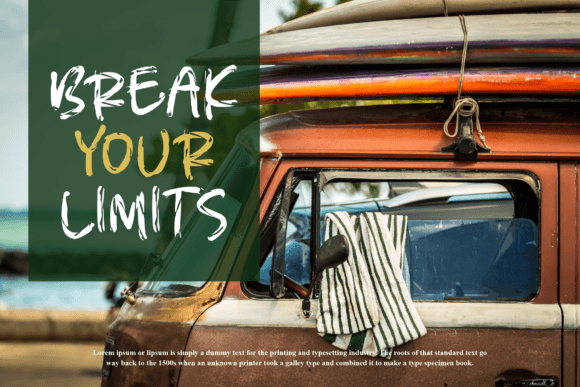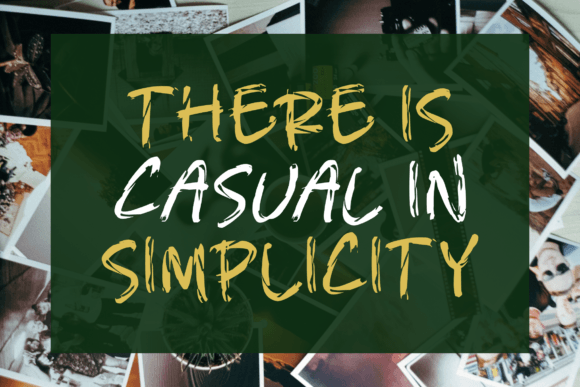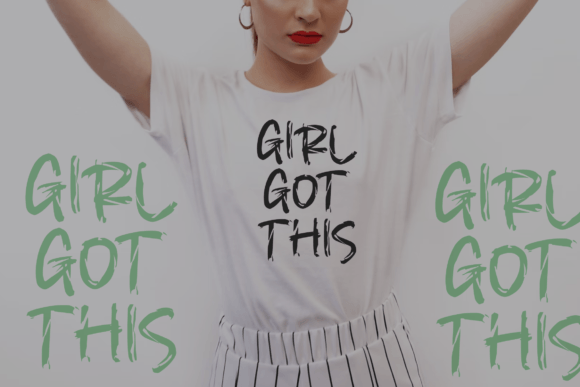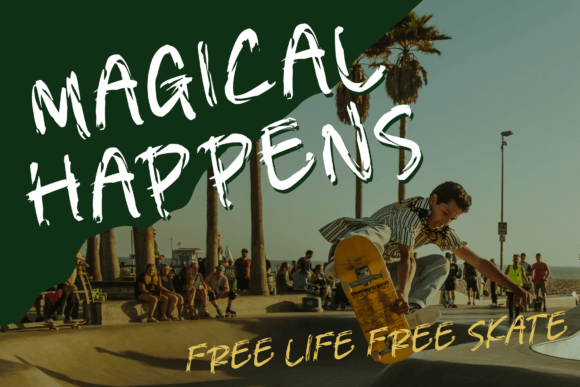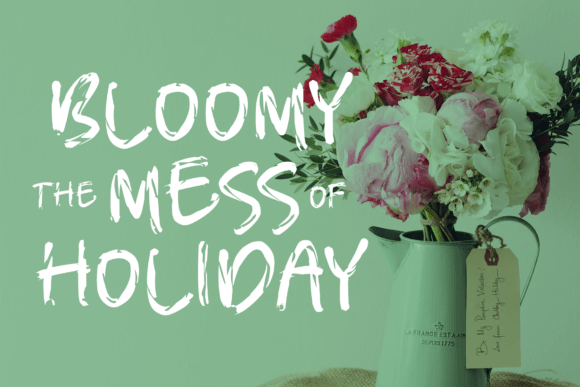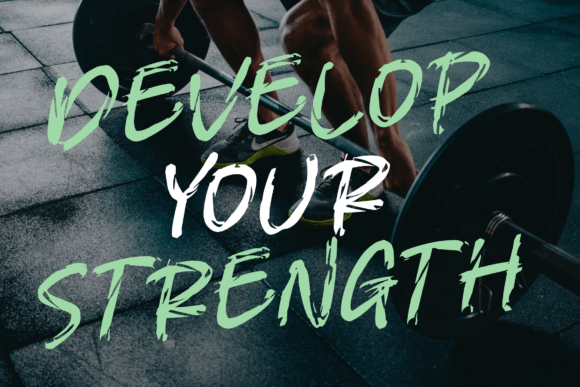
Cybernetic Font: The Ultimate Handwritten Brush Script for Your Design Projects
In the world of design, typography plays a vital role in conveying messages, expressing emotions, and creating a lasting impression. When it comes to adding a touch of personality and charm to your projects, a handwritten brush script font can be the perfect choice. Introducing Cybernetic, a beautiful and versatile font that is sure to captivate your audience. In this article, we’ll dive into the world of Cybernetic, exploring its features, uses, and benefits for designers and crafters.
What is Cybernetic Font?
Cybernetic is a handwritten brush script font designed to add a touch of elegance and sophistication to your projects. With its smooth, flowing strokes and charming letterforms, this font is perfect for creating eye-catching quotes, packaging designs, and more. Whether you’re a designer, crafter, or DIY enthusiast, Cybernetic is an excellent choice for anyone looking to add a personal touch to their work.
Key Features of Cybernetic Font
- Handwritten Brush Script: Cybernetic boasts a beautiful, handwritten brush script style that adds a touch of warmth and personality to your projects.
- Charming Letterforms: The font features charming letterforms with smooth, flowing strokes that create a sense of movement and fluidity.
- Versatile: Cybernetic is perfect for a wide range of design projects, from quotes and packaging to branding and advertising.
- Easy to Read: The font is highly legible, making it easy for your audience to read and understand your message.
Uses of Cybernetic Font
Cybernetic is an incredibly versatile font that can be used in a variety of design projects, including:
- Quotes and Posters: Add a touch of elegance and sophistication to your quotes and posters with Cybernetic.
- Packaging Design: Use Cybernetic to create eye-catching packaging designs that stand out on store shelves.
- Branding and Advertising: Cybernetic is perfect for creating brand identities, advertisements, and marketing materials.
- DIY Projects: Add a personal touch to your DIY projects, such as handmade cards, invitations, and decorations.
Benefits of Using Cybernetic Font
So, why choose Cybernetic for your design projects? Here are just a few benefits of using this amazing font:
- Unique and Eye-Catching: Cybernetic adds a touch of personality and charm to your projects, making them stand out from the crowd.
- Easy to Use: The font is highly legible and easy to read, making it perfect for a wide range of design projects.
- Versatile: Cybernetic can be used in a variety of design projects, from quotes and packaging to branding and advertising.
- High-Quality: Cybernetic is a high-quality font that is designed to deliver exceptional results.
Tips for Using Cybernetic Font
To get the most out of Cybernetic, here are a few tips to keep in mind:
- Experiment with Colors: Cybernetic looks great in a variety of colors, so don’t be afraid to experiment and find the perfect hue for your project.
- Play with Sizes: The font looks great in a range of sizes, from small and delicate to large and bold.
- Combine with Other Fonts: Cybernetic pairs well with a variety of other fonts, so feel free to get creative and experiment with different combinations.
In conclusion, Cybernetic is an amazing handwritten brush script font that is sure to charm your audience. With its smooth, flowing strokes and charming letterforms, this font is perfect for adding a touch of personality and elegance to your design projects. Whether you’re a designer, crafter, or DIY enthusiast, Cybernetic is an excellent choice for anyone looking to create eye-catching and effective designs.